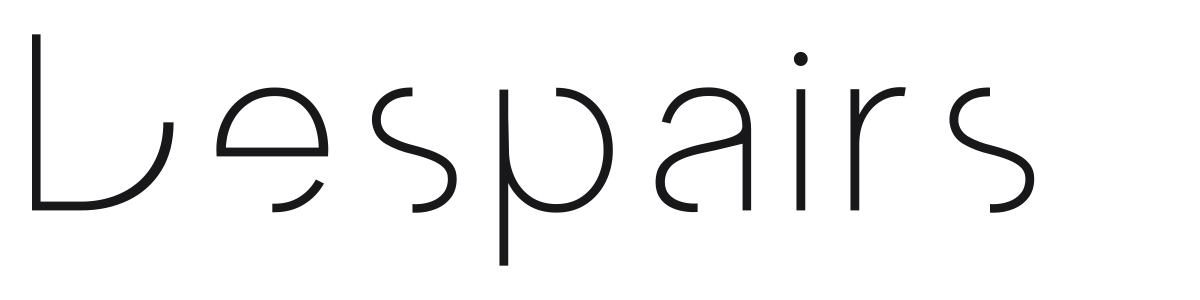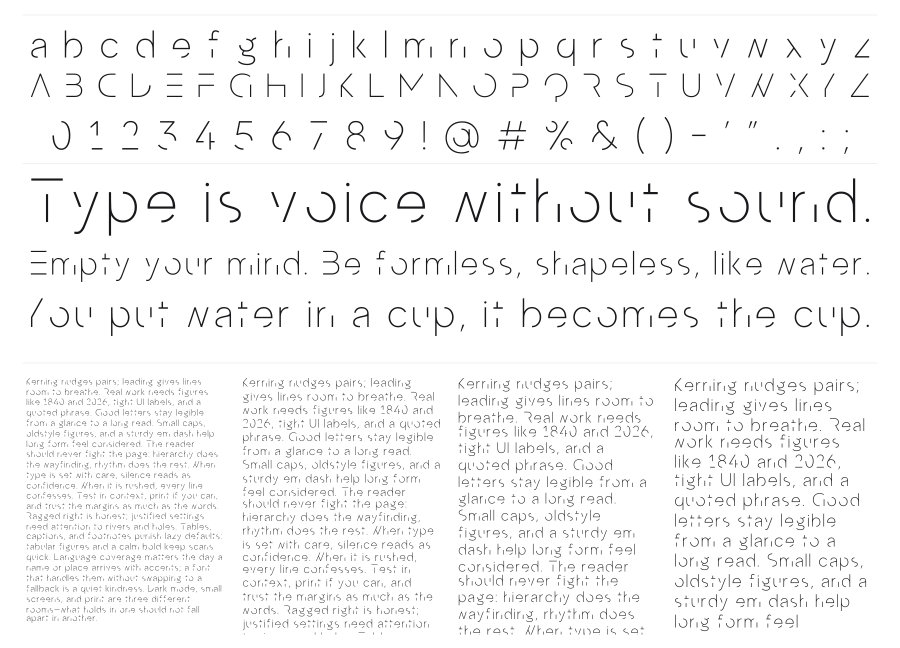
Despairs
Despairs is an ultralight geometric sans with a futuristic, almost skeletal character drawn from hairline strokes and unusual notched details. Its construction sits somewhere between a clean minimalist sans and an experimental display face, with quirky geometric interruptions that give it a distinctly speculative-design feel. Strong at large sizes for logos, titles, and tech-themed editorial.